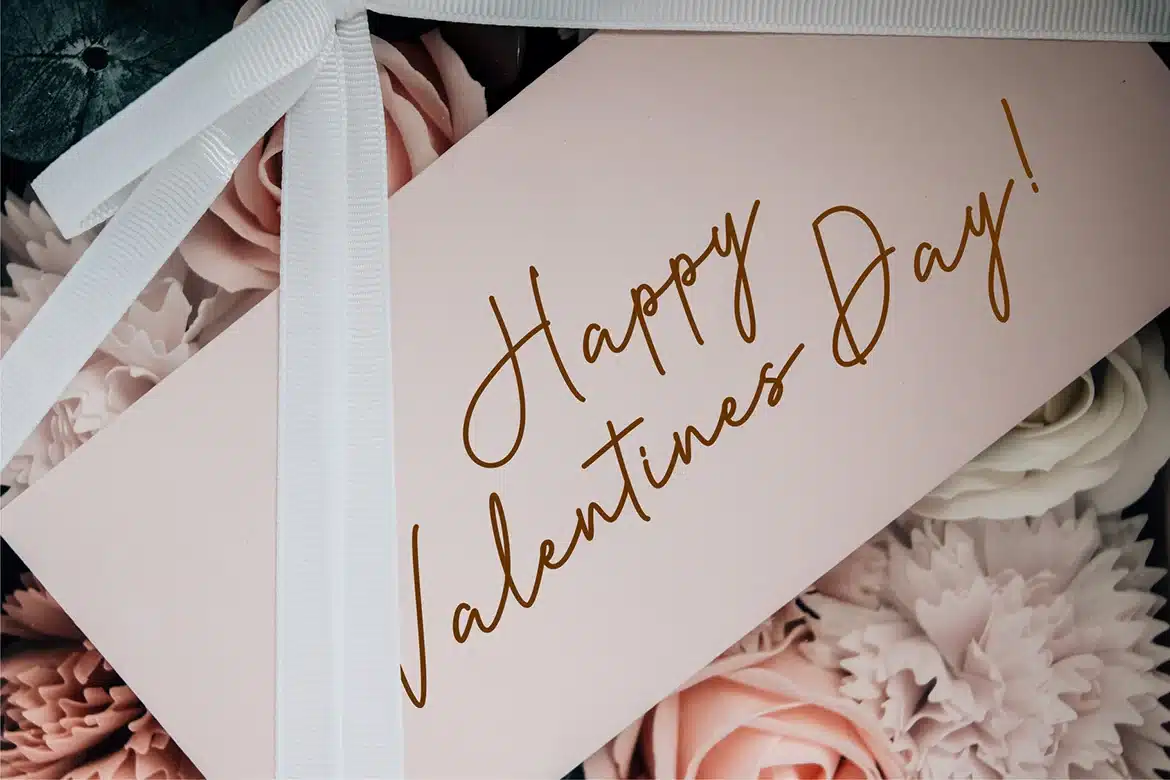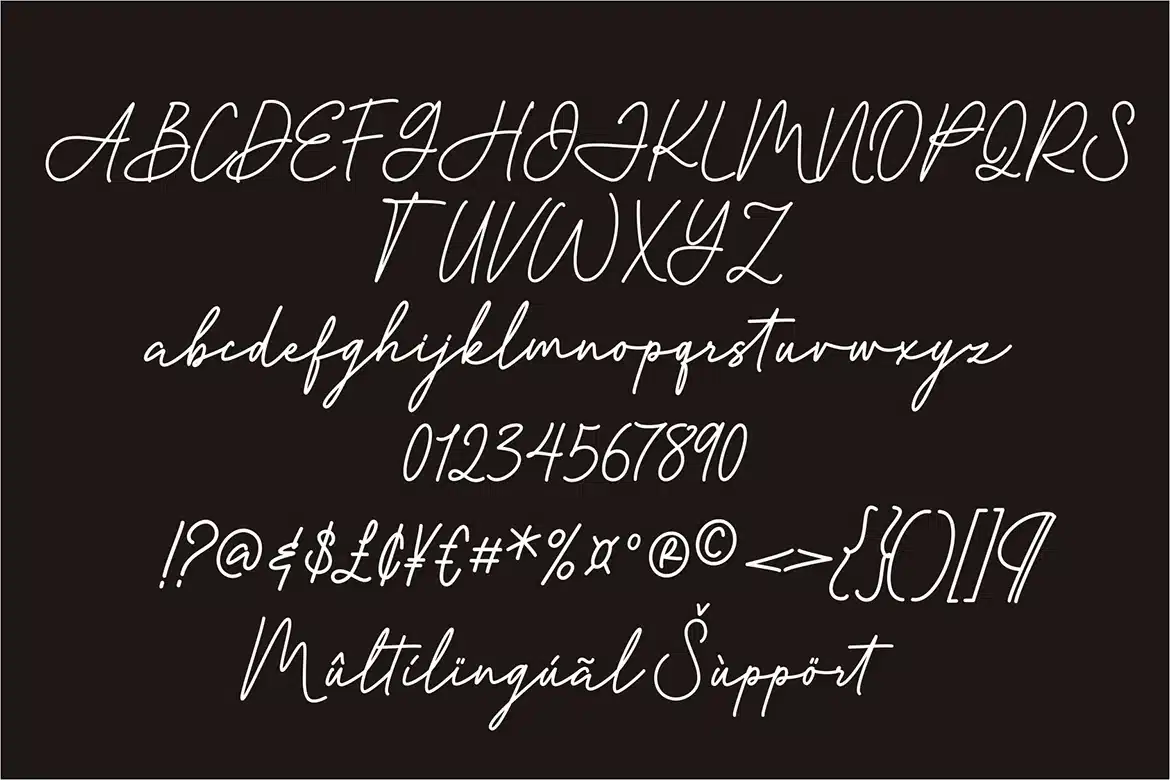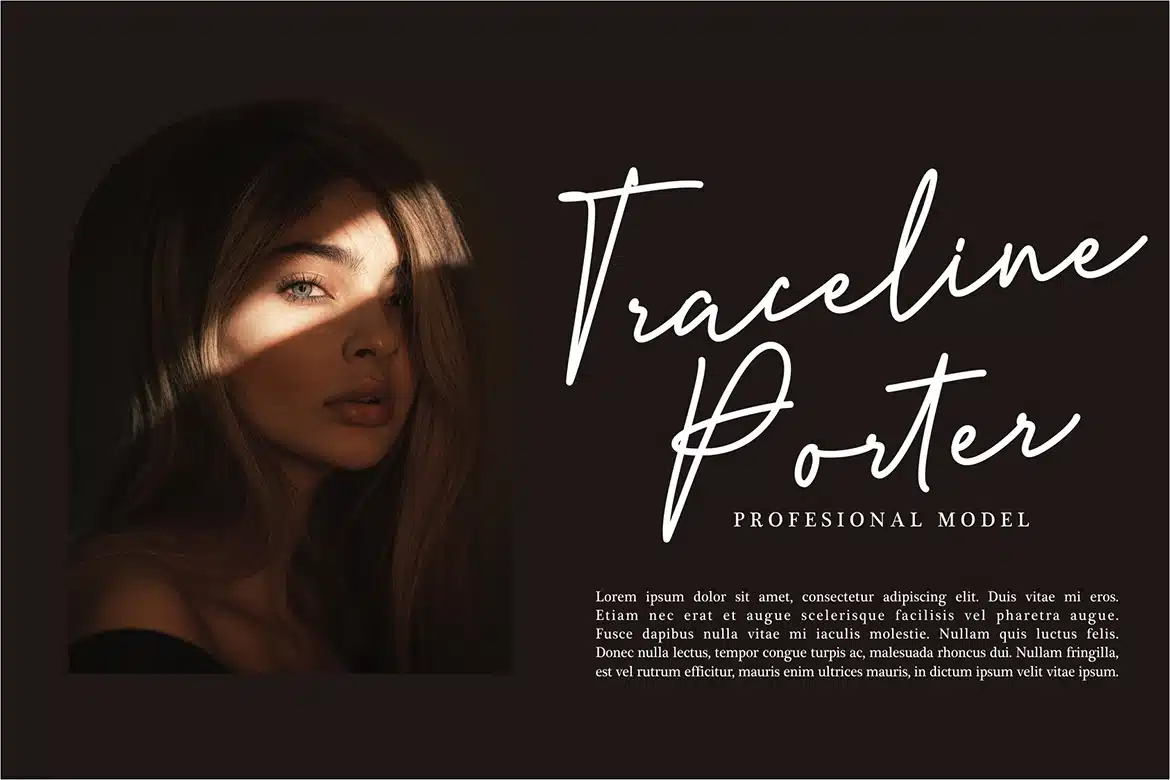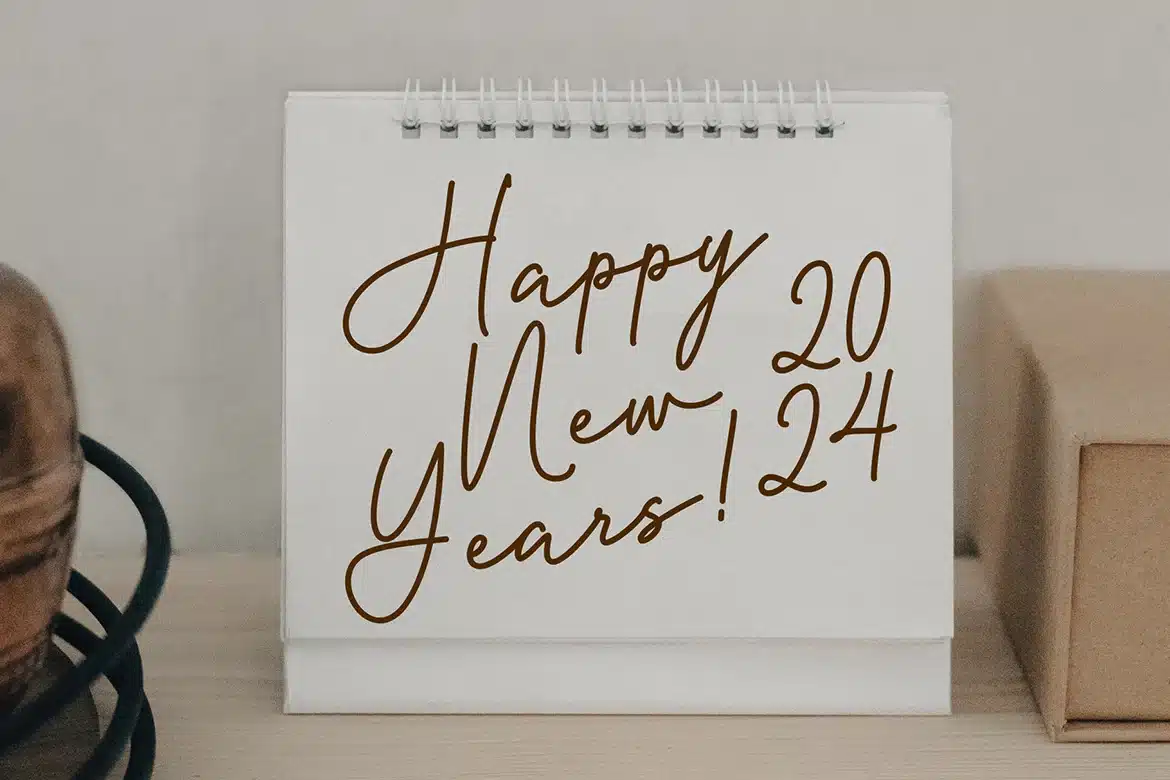
Blooming Beauties Font
Blooming Beauties is a Elegant Monoline script font, perfect for crafting, branding, invitation, stationery, wedding designs, social media posts, advertisements, product packaging, product designs, label, Posters, photography, special events, or anything.
- numeric & Multilingual support